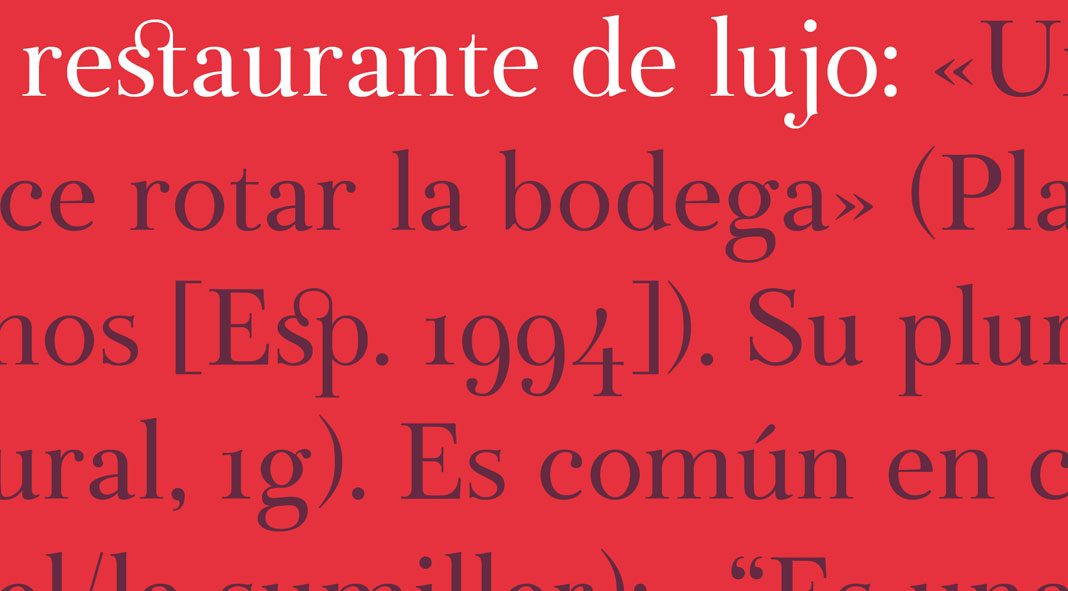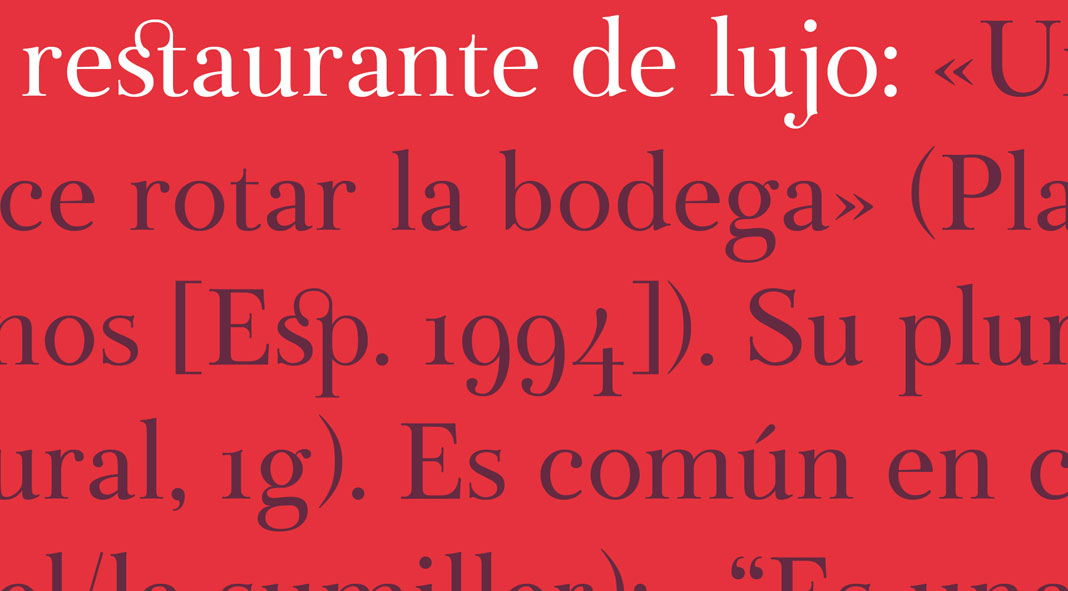
Botera, an award-winning free font by Javi Montoya.
Designed and published by the Spanish graphic designer Javi Montoya, Botera is a typeface with a distinctive wine flavor. The classic yet timeless look of the font is deeply inspired by the region of Valdepeñas (Ciudad Real, Spain) with its rich wine heritage. Available as Regular and Stencil version, the free typeface comprises a total of 278 characters each. It includes uppercase and lowercase letters as well as alternative characters, ligatures, decimal and old numbers, punctuation marks, and some wine-related pictograms.